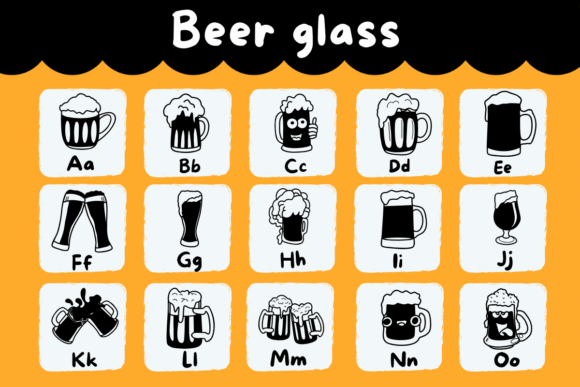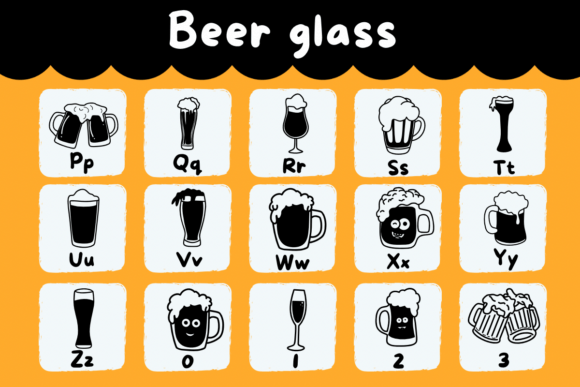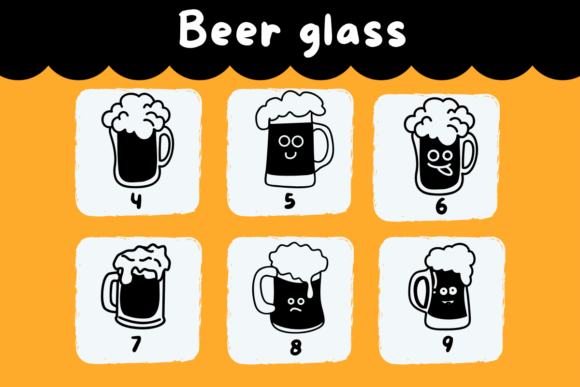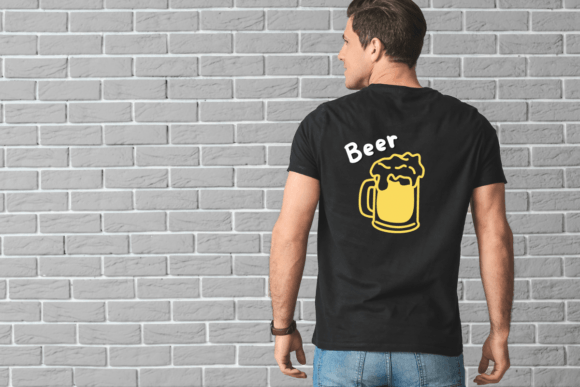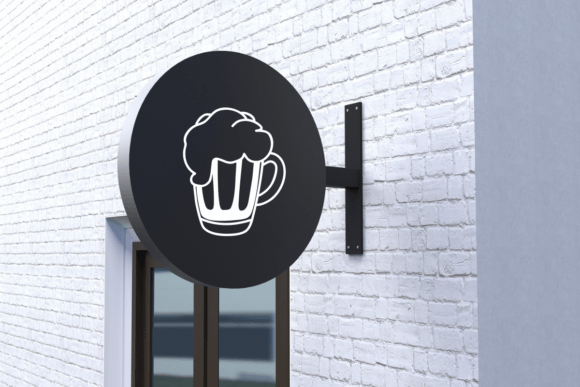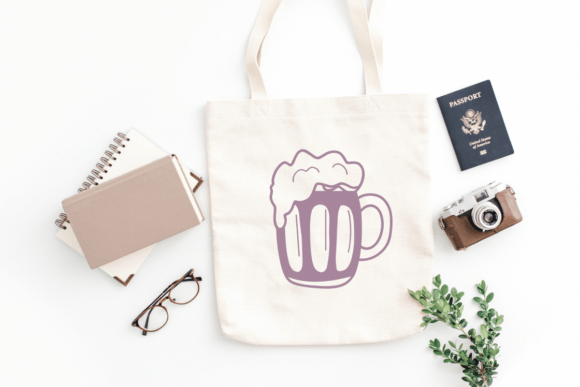
Introducing the Beer Glass Font: A Fun and Creative Way to Add Character to Your Designs
Are you a designer or crafter looking for a unique and playful way to add some personality to your work? Look no further than the Beer Glass dingbat font! This fun and creative font uses images or symbols of beer glasses instead of letters, making it perfect for designing posters, labels, or any artwork related to beer and brewing.
What is the Beer Glass Font?
The Beer Glass dingbat font is a type of font that replaces traditional letters with images of beer glasses. Each character in the font is designed to look like a different style of beer glass, such as a pint, stein, or mug. This font is a great way to add a touch of whimsy and fun to your designs, and is sure to stand out from the crowd.
How is the Beer Glass Font Used?
The Beer Glass dingbat font can be used in a variety of ways, from designing posters and flyers to creating labels and packaging for craft beer. It’s also perfect for use in social media graphics, blog posts, and other online content. The font is easy to use and can be installed on your computer just like any other font.
Benefits of Using the Beer Glass Font
There are many benefits to using the Beer Glass dingbat font in your designs. Here are just a few:
- Unique and eye-catching: The Beer Glass font is a great way to add some personality to your designs and make them stand out from the crowd.
- Perfect for beer-related designs: Whether you’re designing for a craft brewery or just want to add a touch of beer-themed fun to your work, this font is perfect.
- Fun and playful: The Beer Glass font is a great way to add some humor and whimsy to your designs.
Tips for Using the Beer Glass Font
Here are a few tips for using the Beer Glass dingbat font in your designs:
- Use it sparingly: While the Beer Glass font is fun and playful, it can be overwhelming if used too much. Use it sparingly to add emphasis and interest to your designs.
- Pair it with a simple font: Pair the Beer Glass font with a simple font to create contrast and make your designs easier to read.
- Experiment with different colors: The Beer Glass font looks great in a variety of colors, so don’t be afraid to experiment and find the perfect color for your design.
The Beer Glass dingbat font is a fun and creative way to add some personality to your designs. With its unique and eye-catching characters, it’s perfect for designing posters, labels, and other artwork related to beer and brewing. Whether you’re a designer or crafter, this font is sure to bring a smile to your face and add some whimsy to your work.
Getting Creative with the Beer Glass Font
Now that you’ve learned about the Beer Glass font, it’s time to get creative! Here are a few ideas to get you started:
- Design a beer poster: Use the Beer Glass font to create a poster for a craft brewery or beer festival.
- Create a label: Use the Beer Glass font to create a label for a craft beer bottle or can.
- Make a social media graphic: Use the Beer Glass font to create a social media graphic for a beer-themed event or promotion.
With the Beer Glass dingbat font, the possibilities are endless! So why not give it a try and see what kind of creative and fun designs you can come up with?